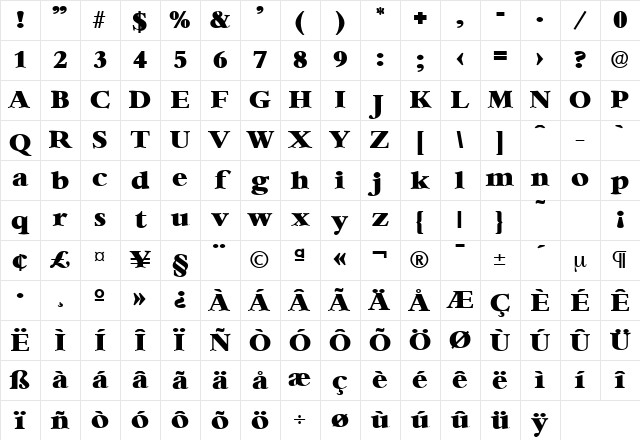
Bernstein-Serial-Heavy Regular
Complete Bernstein-Serial-Heavy Regular glyph index. Displaying only characters natively supported by Bernstein-Serial-Heavy Regular font.
Design Context for Bernstein-Serial-Heavy
Bernstein-Serial-Heavy is a composed and adaptable typeface that performs quietly and consistently across a wide range of design contexts.
Pro Tip: Use Bernstein-Serial-Heavy in both headline and body roles to test its range before committing to a single application.